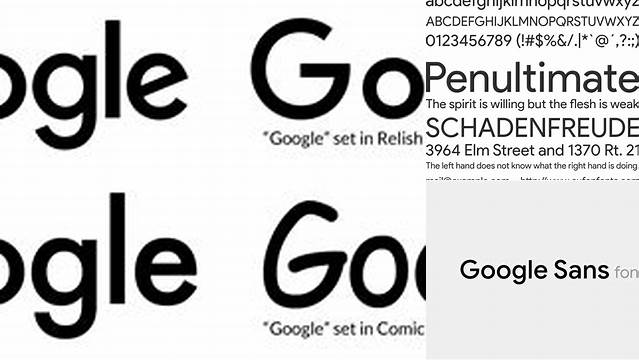
Google Sans: Get The Font & Best Free Alternatives
Hey guys! Ever wondered about that sleek, modern font that Google uses everywhere? You know, the one that makes their products look so clean and user-friendly? Well, that's Google Sans, and it's a pretty big deal in the world of typography. In this article, we're going to dive deep into what Google Sans is, why it's so popular, and how you can potentially get your hands on it (or some awesome alternatives!). So, buckle up, and let's get started on this font-tastic journey!
What is Google Sans?
At its core, Google Sans is a geometric sans-serif typeface. What does that even mean? Well, "geometric" refers to the font's construction, which is based on simple geometric shapes like circles and squares. This gives it a very clean, modern, and approachable look. "Sans-serif" simply means that the letters don't have those little decorative strokes (serifs) at the ends, which further contributes to its minimalist aesthetic. Google Sans was designed to be highly legible across a variety of screen sizes and resolutions, making it perfect for digital interfaces. It's used extensively in Google's product suite, including Android, Chrome, and various web applications, giving a unified and recognizable brand identity. The font is characterized by its low contrast and optimized for readability on screens, which reduces eye strain and enhances the user experience. One of the main reasons behind Google Sans' widespread adoption is its versatility. It works equally well for headlines, body text, and UI elements, providing a consistent visual language across all platforms. The font family includes different weights, ranging from light to bold, allowing designers to create visual hierarchy and emphasize important information. The clean lines and simplified forms of Google Sans make it ideal for conveying information quickly and efficiently, which is crucial in today's fast-paced digital environment. Moreover, the font's design reflects Google's commitment to accessibility. Its clear and unambiguous letterforms make it easier for people with visual impairments to read and understand the content. This focus on inclusivity has contributed to Google Sans' popularity among designers and developers who prioritize user-centered design. From a technical standpoint, Google Sans is meticulously crafted to ensure optimal rendering on different devices and operating systems. Its hinting and kerning are carefully adjusted to prevent distortion and maintain readability at various sizes. This attention to detail ensures a consistent and high-quality typographic experience, regardless of the user's device or browser. Furthermore, Google Sans is designed to support multiple languages and scripts, making it suitable for global audiences. This internationalization support is essential for Google, as its products and services are used by people all over the world. The font includes a comprehensive set of characters and symbols, allowing it to display text accurately in various languages, including Latin, Cyrillic, and Greek. The ongoing development and refinement of Google Sans demonstrate Google's commitment to typographic excellence. The font is regularly updated to incorporate new features and improvements, ensuring that it remains at the forefront of digital typography. This continuous evolution helps Google maintain a consistent and modern brand identity across all its products and platforms.
Great Alternatives to Google Sans
Since getting your hands on the official Google Sans might not be possible, let's explore some fantastic alternatives that capture a similar vibe:
- Roboto: As mentioned earlier, Roboto is your best bet. It's a Google-designed font, open-source, and shares the same DNA as Google Sans. Itâs clean, modern, and incredibly versatile.
- Product Sans: is an exclusive geometric sans-serif typeface crafted by Google, however, it's not available for public use, which is a bummer.
- Open Sans: Another excellent choice. Open Sans is a humanist sans-serif typeface designed by Steve Matteson. It's optimized for print, web, and mobile interfaces, and it has excellent readability characteristics. Plus, it's free!
- Lato: Lato is a sans-serif typeface designed by Ćukasz Dziedzic. It has a warm and friendly feel, while still maintaining a professional and modern look. It's another great free option.
- Montserrat: If you're looking for something a bit more geometric, Montserrat is a fantastic choice. It's inspired by the urban typography of Buenos Aires and has a very stylish and contemporary feel.
- Nunito: Nunito is a well-balanced sans-serif font that is both functional and appealing. It has rounded terminals, giving it a friendlier and more approachable feel than some of the more strictly geometric options.
These fonts all offer a similar aesthetic to Google Sans, providing clean lines, excellent readability, and a modern feel. Experiment with them to see which one best suits your project! Exploring different font options can lead to unexpected discoveries and help you find the perfect typeface for your design. Each of the fonts listed above has its unique characteristics and strengths, making it suitable for various applications. Roboto, for example, is an excellent all-around choice that works well for both body text and headlines. Its clean and neutral design ensures readability across different screen sizes and resolutions. Open Sans is another highly versatile option that is optimized for legibility in print and digital environments. Its humanist design adds a touch of warmth and personality to the text, making it more engaging for the reader. Lato, with its rounded corners and friendly appearance, is a great choice for projects that require a more approachable and informal tone. It works well for websites, marketing materials, and user interfaces that aim to create a welcoming and inviting atmosphere. Montserrat, inspired by the urban typography of Buenos Aires, exudes a sense of sophistication and modernity. Its geometric forms and bold lines make it ideal for headlines, logos, and branding materials. Nunito, with its rounded terminals and balanced design, strikes a perfect balance between functionality and aesthetics. It is a great choice for body text, captions, and other applications where readability and visual appeal are equally important. In addition to these popular alternatives, there are many other sans-serif fonts available that offer a similar aesthetic to Google Sans. By experimenting with different options and considering the specific requirements of your project, you can find the perfect typeface to enhance your design and communicate your message effectively. Remember to pay attention to factors such as readability, legibility, and the overall tone and style of the font when making your selection. Ultimately, the best font is the one that best complements your design and helps you achieve your desired goals.
Remember to choose the right font weight (e.g., Regular, Bold, Italic) to create visual hierarchy and emphasis in your design. Also, pay attention to the font size and line height to ensure optimal readability. Experiment with different combinations to find what works best for your specific project.
When using fonts in your design projects, it's important to consider the overall aesthetic and message you want to convey. Different fonts evoke different emotions and associations, so choose fonts that align with your brand identity and target audience. For example, a clean and modern sans-serif font like Roboto might be suitable for a tech company, while a more classic serif font might be a better choice for a traditional law firm. In addition to the font itself, the way you use it can also have a significant impact on the overall design. Pay attention to factors such as font size, line height, letter spacing, and color to ensure that your text is both legible and visually appealing. Use different font weights and styles to create visual hierarchy and emphasize important information. Experiment with different combinations of fonts to create a unique and memorable design. When using fonts on your website, it's important to optimize them for performance. Large font files can slow down your website's loading time, which can negatively impact user experience and search engine rankings. Use font formats like WOFF and WOFF2, which are specifically designed for web use and offer better compression than older formats like TTF and OTF. Consider using a content delivery network (CDN) to serve your fonts from a location closer to your users, which can further improve loading times. Finally, remember to test your fonts on different devices and browsers to ensure that they render correctly and look good on all platforms. Use browser developer tools to inspect the fonts and identify any potential issues. By following these tips, you can ensure that your fonts enhance your design and contribute to a positive user experience.
So there you have it! While the official Google Sans font might be a bit elusive, there are plenty of amazing alternatives that capture its essence. Roboto, Open Sans, Lato, Montserrat, and Nunito are all excellent choices that will give your projects a clean, modern, and professional look. Experiment with them, have fun, and create something awesome! Remember, typography is a powerful tool that can elevate your designs and communicate your message effectively. Choose wisely, and happy designing!